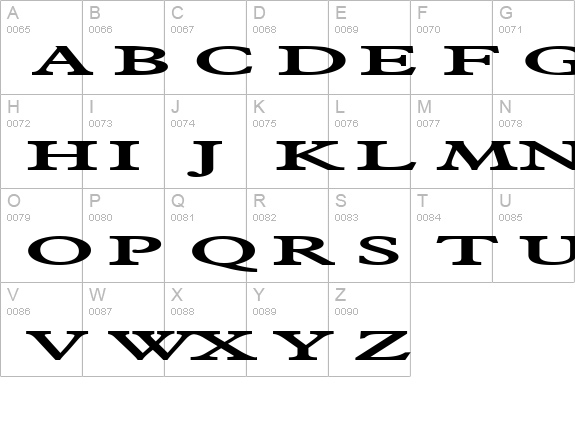
Nadine Extended Bold is a strong, high-contrast, extended-width variant in the Nadine typeface family \xE2\x80\x94 well suited to headlines, attention-grabbing titles, and strong calls-to-action.
Nadine Extended Bold font is a modern and sleek typeface that exudes confidence and sophistication. With its bold and distinctive letterforms, this font is perfect for making a bold statement in your designs. The extended characters add a unique touch to any project, making it stand out from the rest. What's even better is that Nadine Extended Bold font is available for free download at FontsMarket.com. Whether you are working on a branding project, website design, or any other creative endeavor, this font is sure to elevate your work to the next level. Don't miss out on this opportunity to enhance your designs with the stylish and versatile Nadine Extended Bold font.